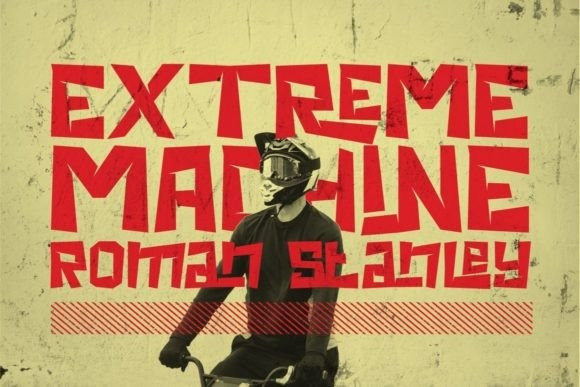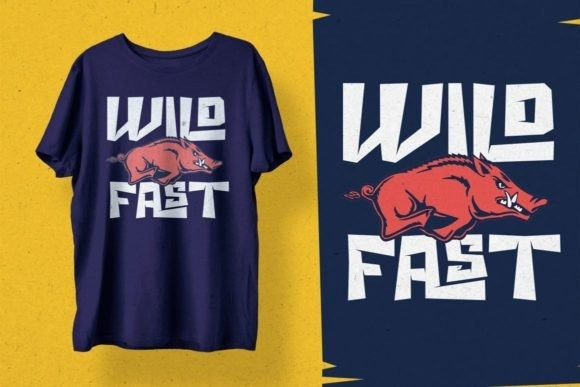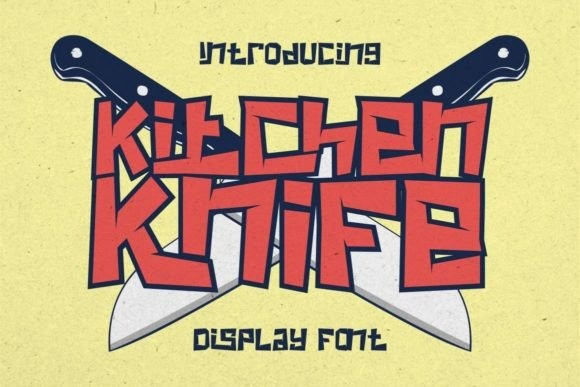
Kitchen Knife Font
Kitchen Knife Display Font is a bold and trendy display font. Fall in love with its incredibly distinct and timeless style and use it to create spectacular designs!